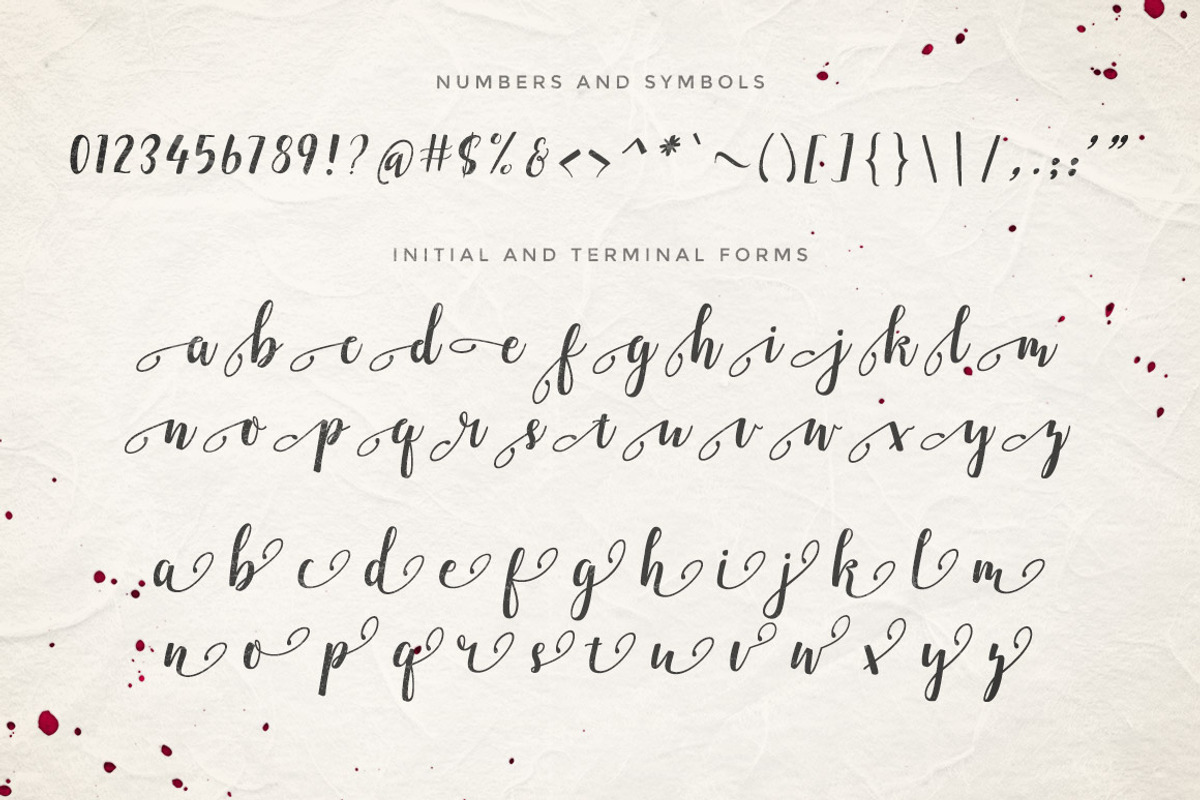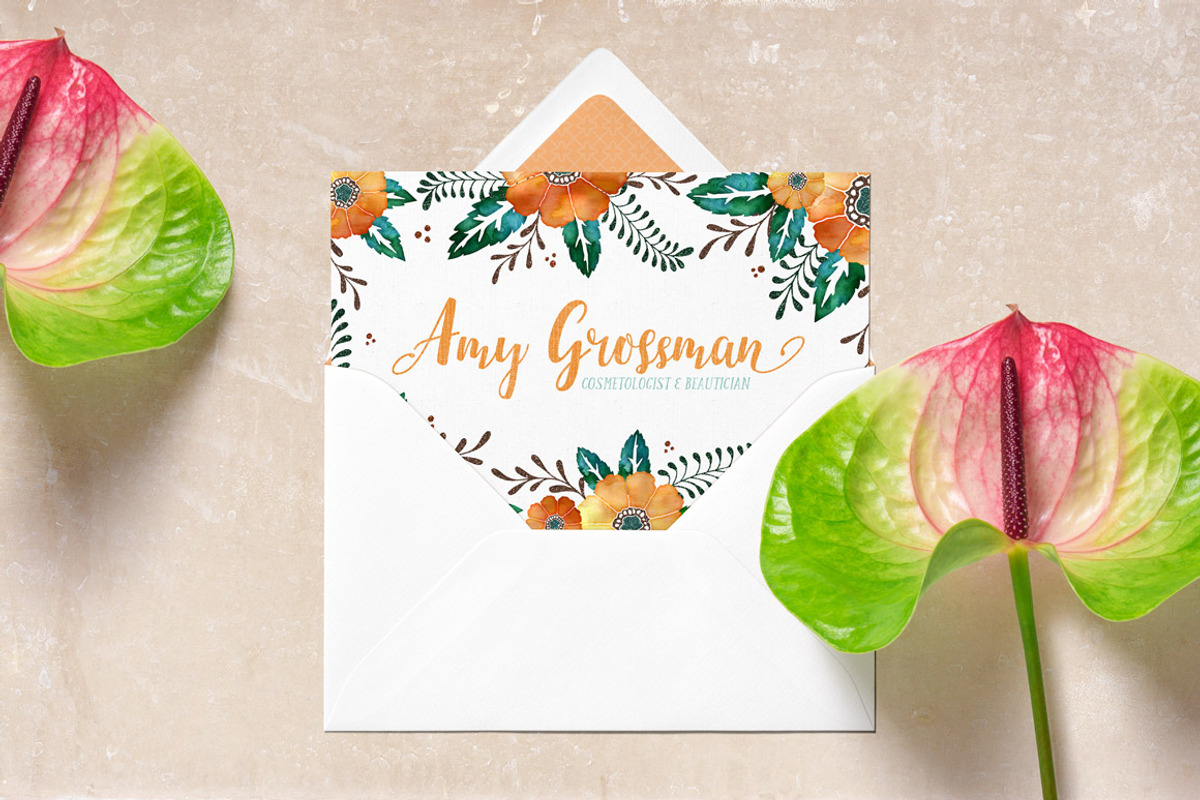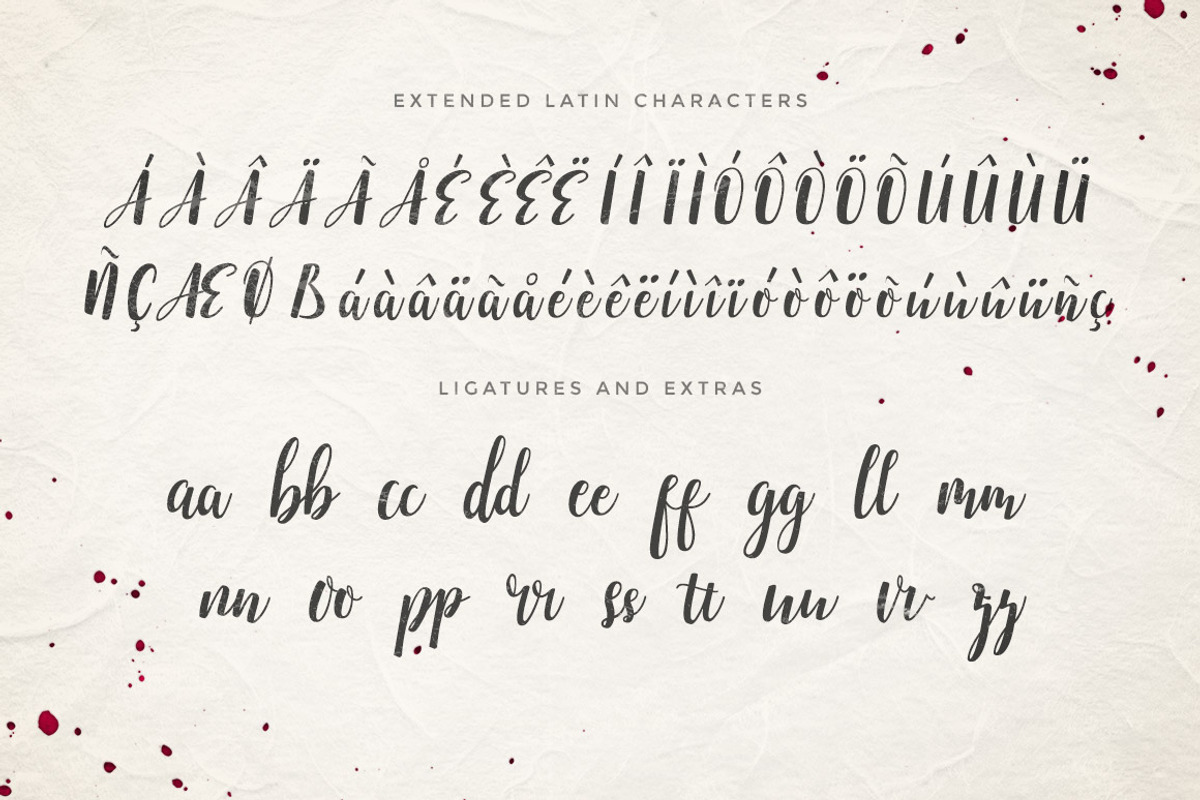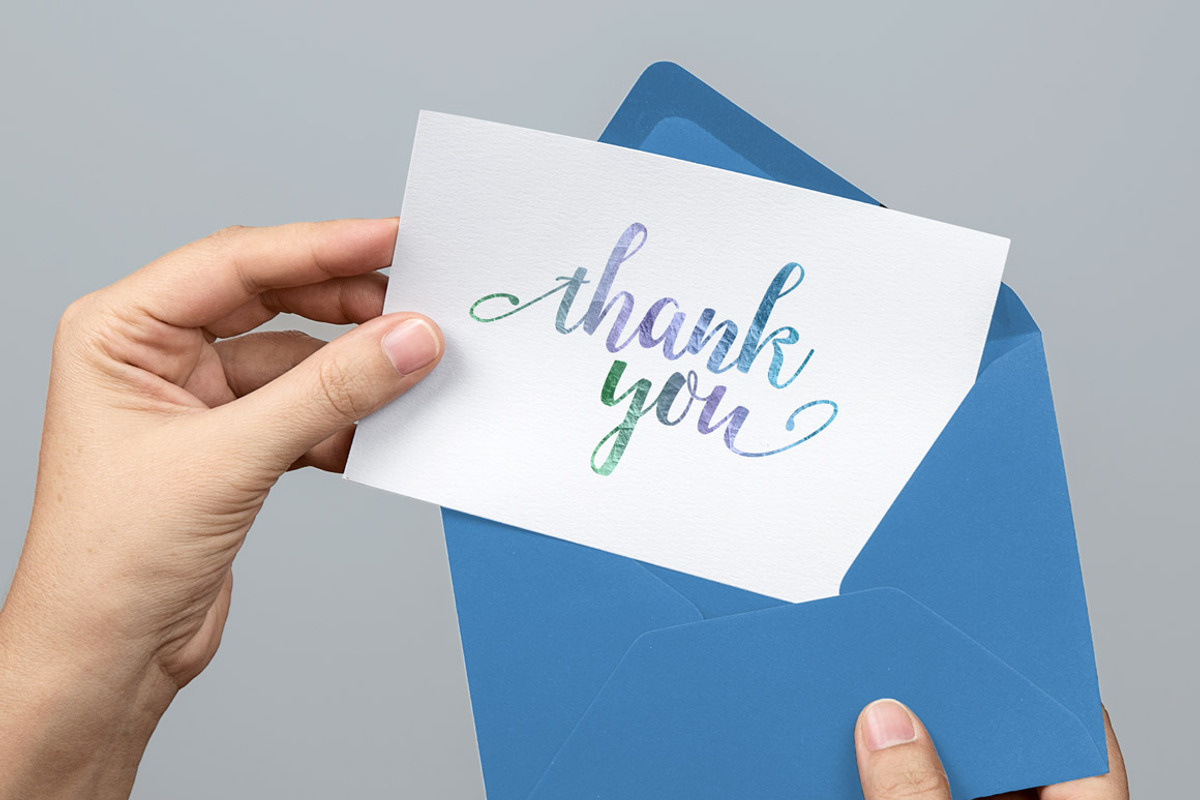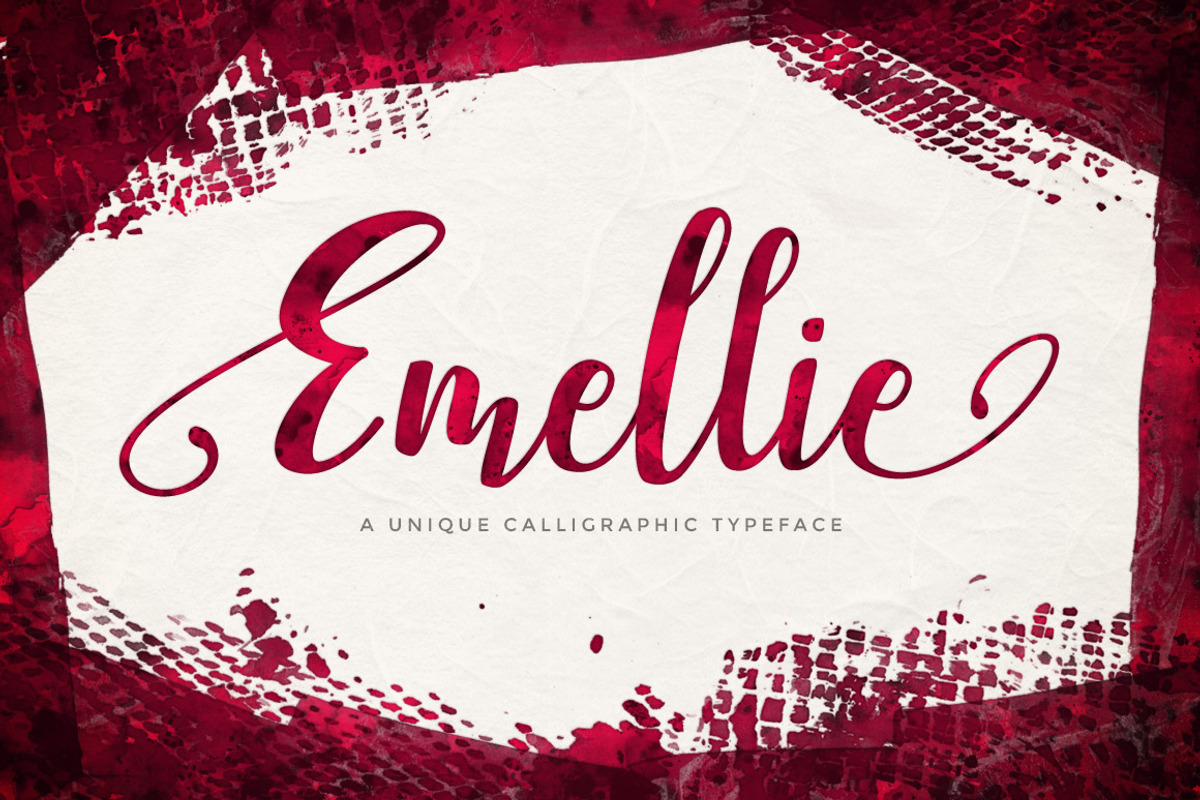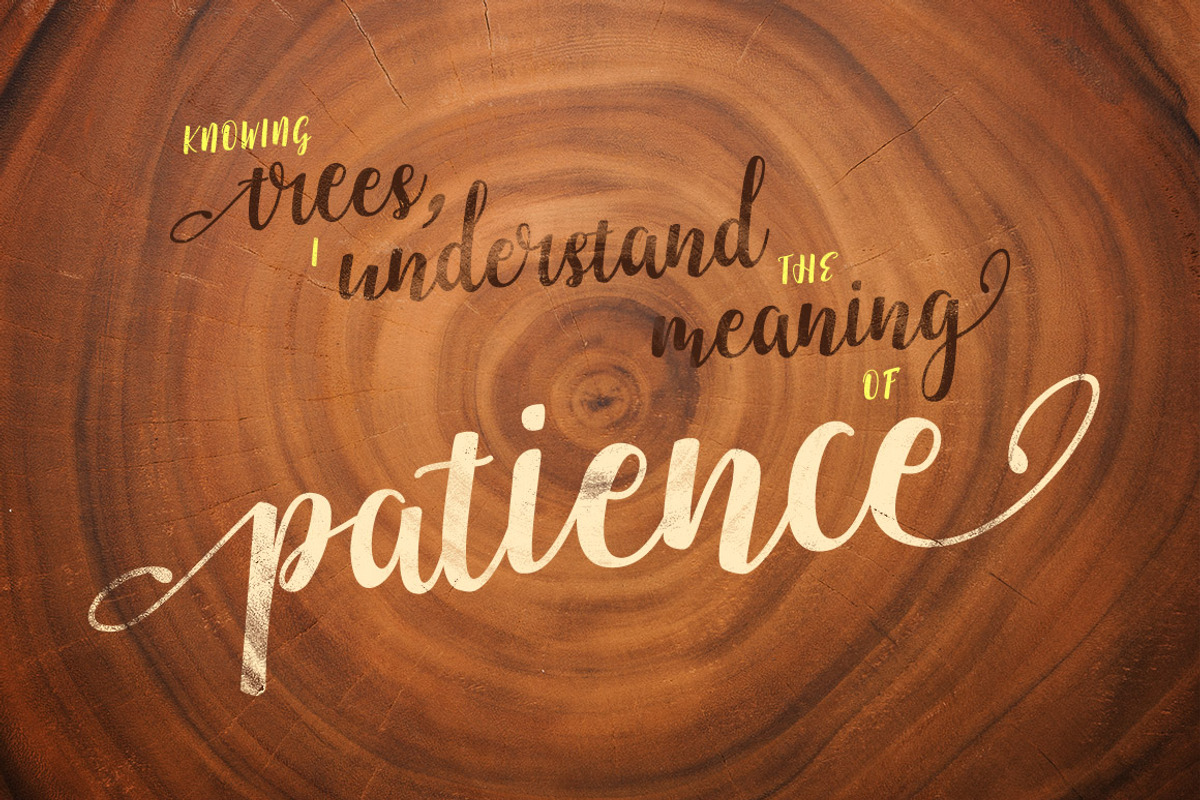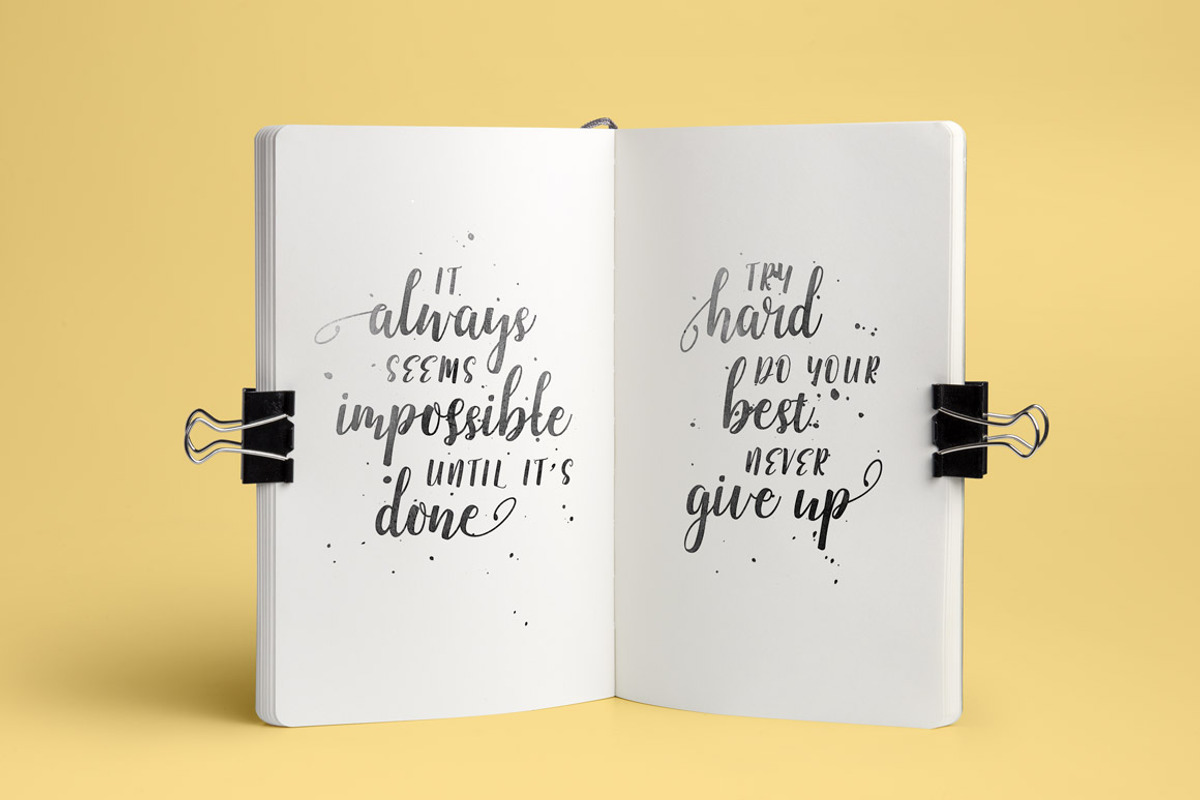
Emellie Script Font
Emellie Script Font by Design Panoply is a font selected for branding, posters, packaging, typography.
- Included are standard Latin characters, uppercase alternates, initial and terminal forms, numbers and symbols, extended Latin characters, an
Why Emellie Script Font is worth a look
Emellie Script Font by Design Panoply fits naturally into Branding, posters, packaging, typography.